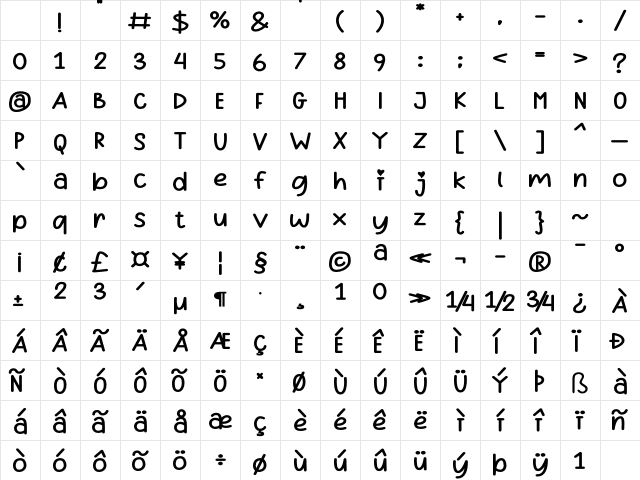
Rain Kiss Regular Free Font
Rain Kiss Regular
Designer: Heru Utama Putra
Complete Rain Kiss Regular glyph index. Displaying only characters natively supported by Rain Kiss Regular font.
Design Context for Rain Kiss
Rain Kiss is a composed and adaptable typeface that performs quietly and consistently across a wide range of design contexts.